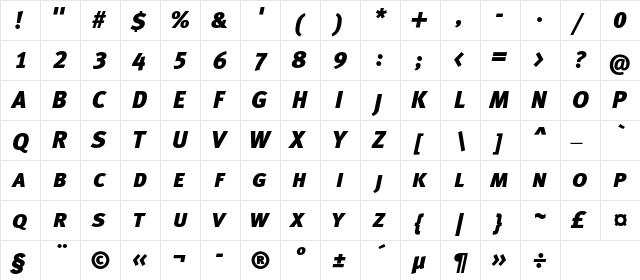
MetaBlackCapsLFC Italic
Design Context for MetaBlackCapsLFC Typeface
MetaBlackCapsLFC is a composed and adaptable typeface that performs quietly and consistently across a wide range of design contexts. The dynamic lean of this cut emphasises speed and emphasis in any layout.
Pro Tip: Try MetaBlackCapsLFC for annotation and caption copy alongside an upright companion — the contrast in angle creates a dynamic but ordered typographic system.